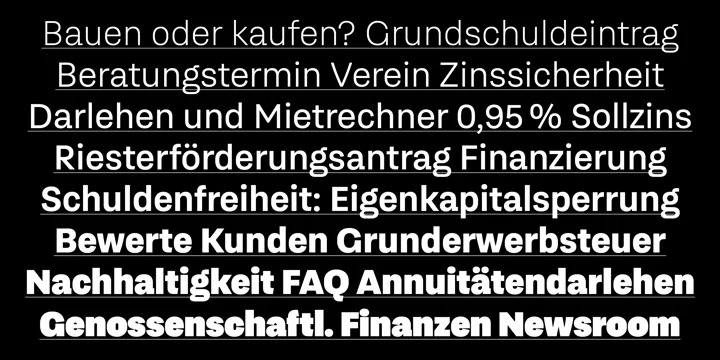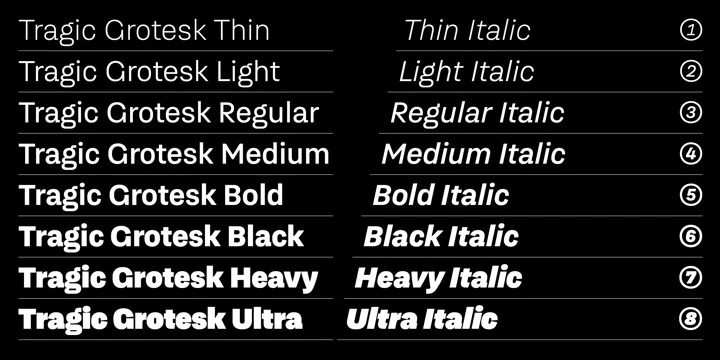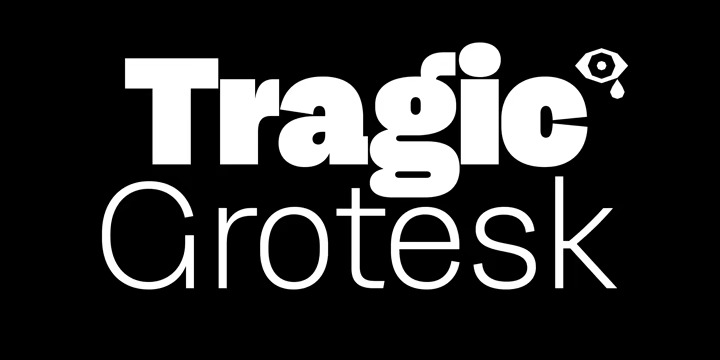
Tragic Grotesk Font Family
Tragic Grotesk Sans Serif Font is a well-balanced sans serif font family it was designed with focus on legibility, lively details and a kind of a rough but pleasant texture. Tragic Grotesk is not neutral: On the contrary, it attempts to negotiate a mediating act between warmth and humanity on the one hand and technical directness on the other. The shapes and proportions of Tragic Grotesk were designed with the aim of balance and harmony. The openings such as a, c, e and s are semi-open and the stroke endings of these letters are slightly slanted. Furthermore elements from pre-Helvetica times were mixed in: references to the design of grotesque typefaces from the late 19th century. A couple more design properties: Technical, »DIN«-related straight lines have been injected into the round shapes. And finally the ever so slightly curved diagonal strokes as a nod to the calligraphic origins of type. In total Tragic Grotesk is not neutral: It conveys warmth and digital clarity.